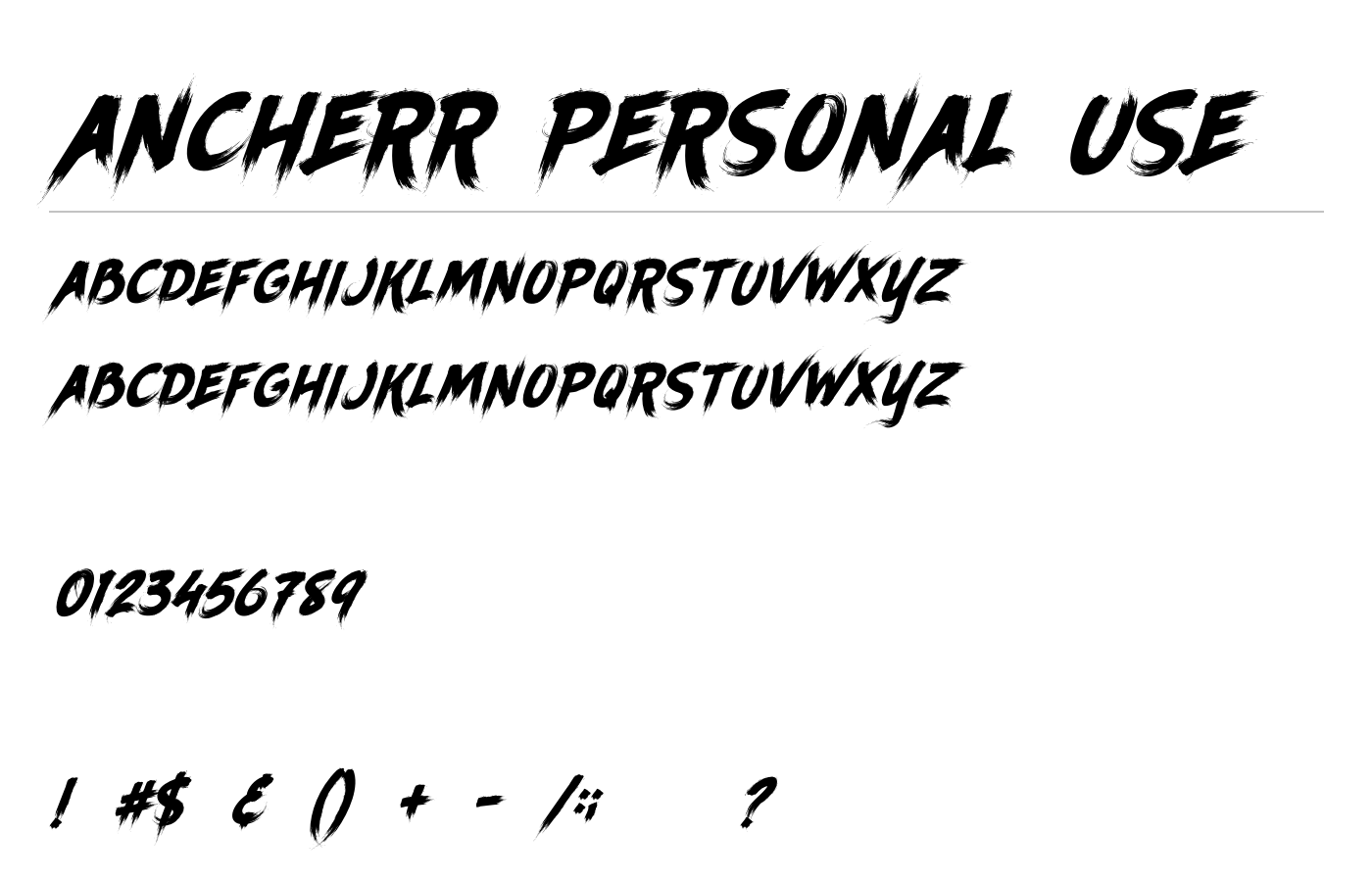
Ancherr Personal Use is a bold, brush-style sans serif font that delivers an energetic and dynamic feel through its sharp, textured strokes resembling hand-painted lettering. Its slightly condensed letterforms and uppercase focus make it perfect for attention-grabbing headlines, posters, and branding that aim to express creativity and a rebellious, edgy personality. This font works best in designs seeking a casual yet powerful look with an artistic flair.
Ancherr Personal Use Font
About Ancherr Personal Use Font